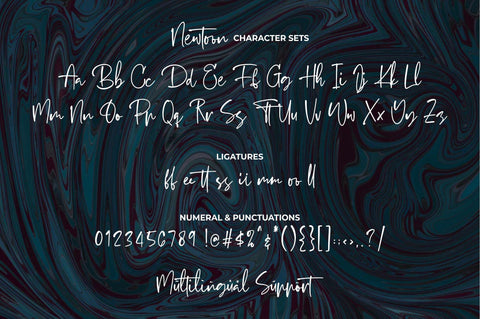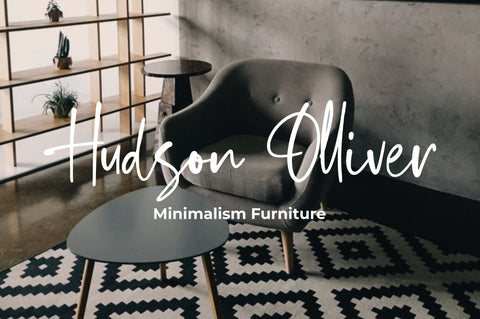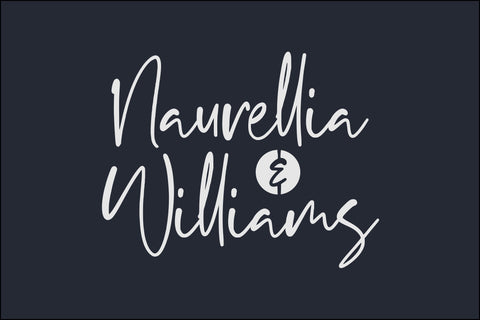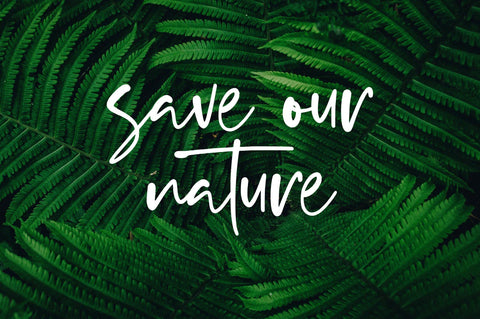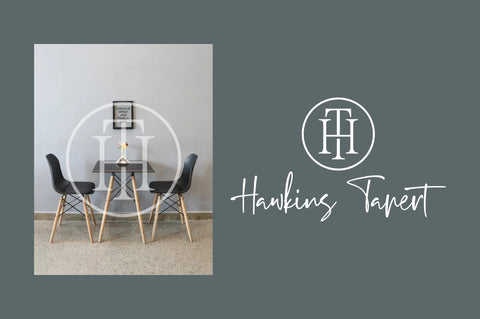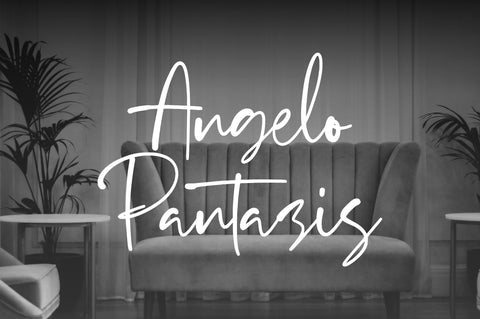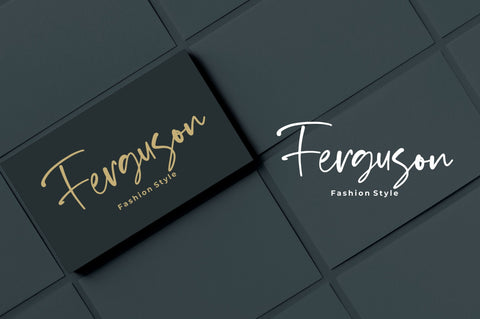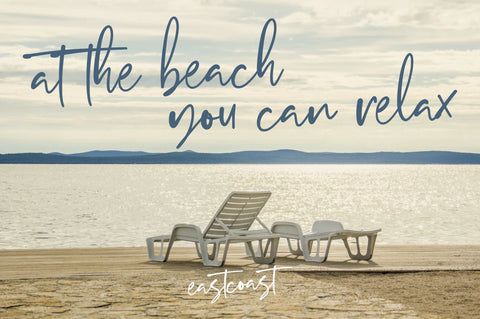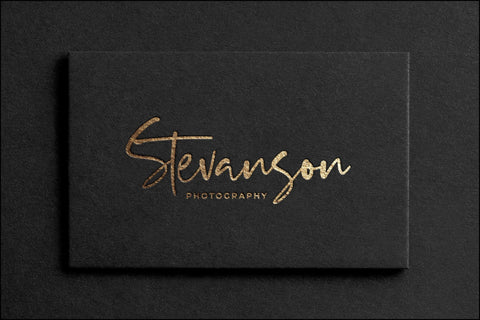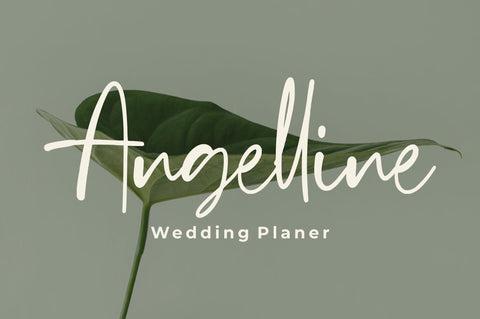
Newtoon – Handwritten Font
Newtoon – Handwritten Font is a modern signature font. Perfect for logo, invitation, stationery, wedding designs, social media posts, advertisements, product packaging, product designs, label, photography, watermark, special events or anything. This font include : Newtoon Regular & Italic OTF-TTF-WOFF, Ligatures, and also Multilingual support.
What’s Advantages Newtoon ?
• Very great for branding, logotype, handletteing, invitations, or fashion branding.
• Multilingual Support